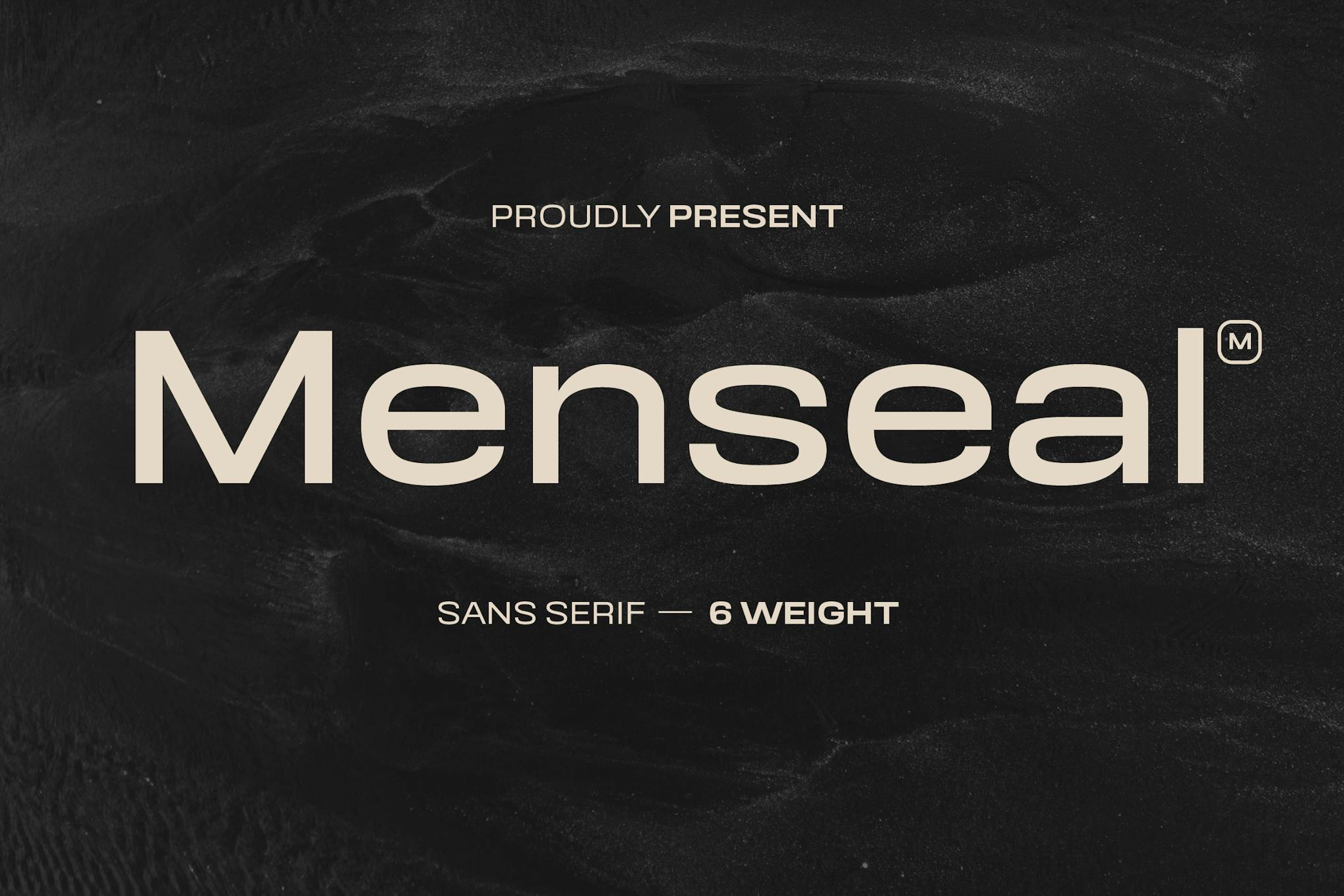
Menseal Family Font
Perfect for corporate branding, editorial layouts, web design, packaging, presentations, and professional print materials.
The Menseal Family Font excites designers with its clean structure, balanced proportions, and versatile character set that adapts to a wide range of design needs.
Font families: Menseal Family Light, Menseal Family Regular, Menseal Family Medium, Menseal Family Bold, Menseal Family Italic.
The Menseal Family Font Free Download is a premium typeface designed for maximum versatility and professional impact. Its modern sans serif structure is refined for both digital and print environments, offering excellent readability at all sizes. From branding campaigns to magazine layouts, this font brings clarity, elegance, and consistency to every project.
One of the biggest strengths of Menseal Family Font is its ability to maintain visual harmony across different weights and styles. Whether you’re designing a corporate brochure, a website UI, or a high-end product label, you can rely on this font family to provide the right typographic tone for your brand. Light weights deliver a sleek and minimalist look, while bold weights create strong, attention-grabbing headlines.
In branding, Menseal Family stands out as a go-to choice for businesses that want to convey professionalism and trust. Its geometric precision and smooth curves make it suitable for tech companies, law firms, luxury brands, and creative agencies alike. It pairs effortlessly with serif or display fonts, making it easy to build a complete visual identity.
For editorial work, the Menseal Family Font offers excellent legibility in body text while providing stylish impact for headings and pull quotes. Its multiple weights give designers flexibility to establish hierarchy and rhythm within layouts, ensuring a polished, cohesive result.
In digital applications, this font performs beautifully on screens of all sizes. It’s ideal for mobile-friendly websites, app interfaces, and online presentations, maintaining a clean and crisp appearance in any resolution.